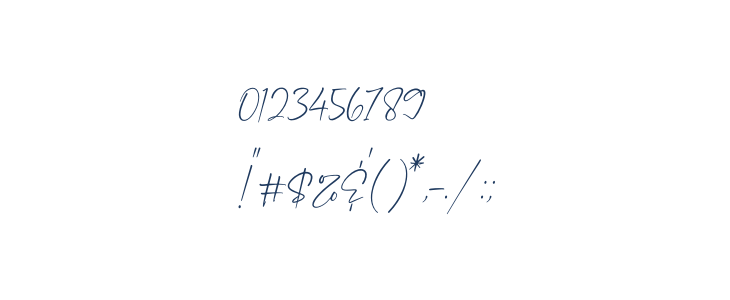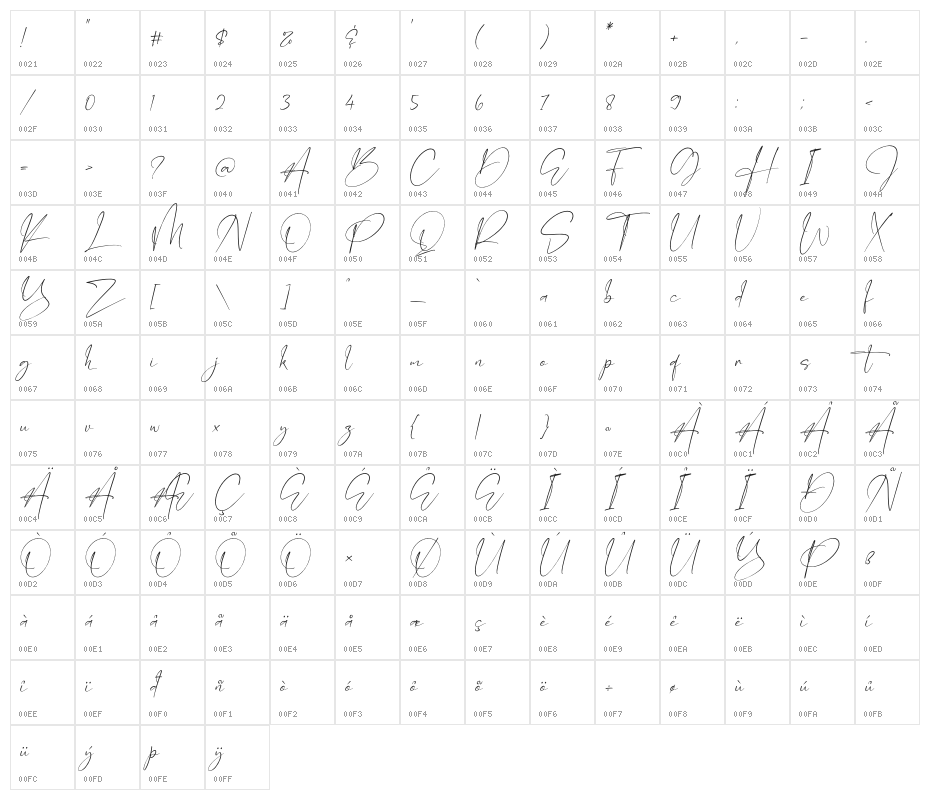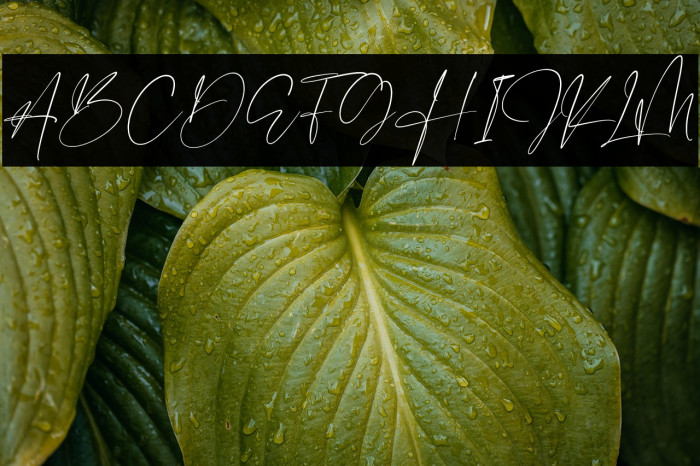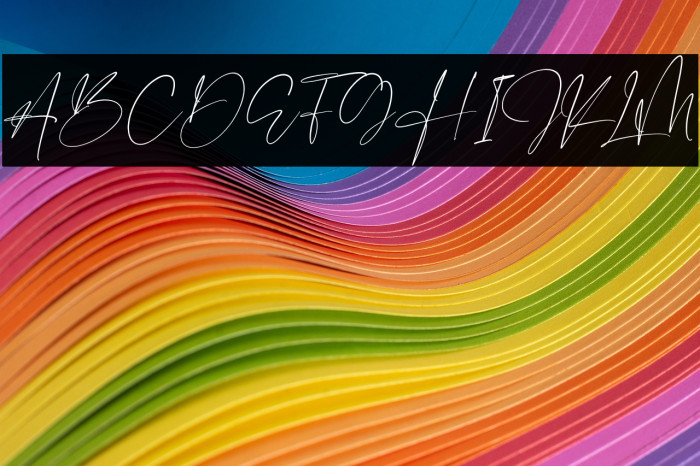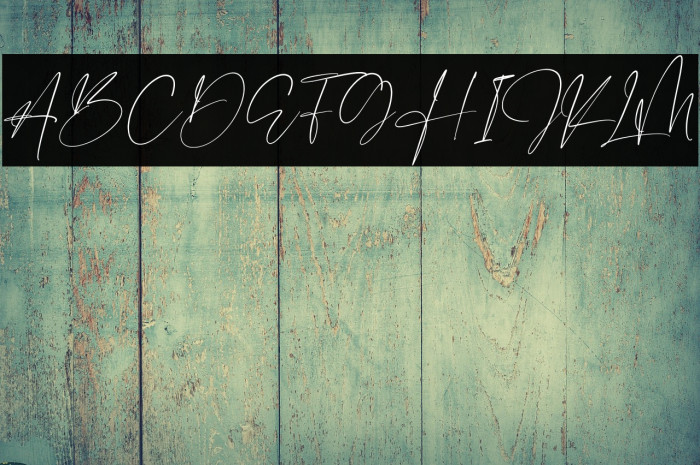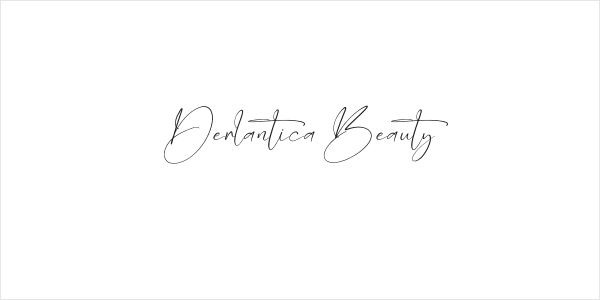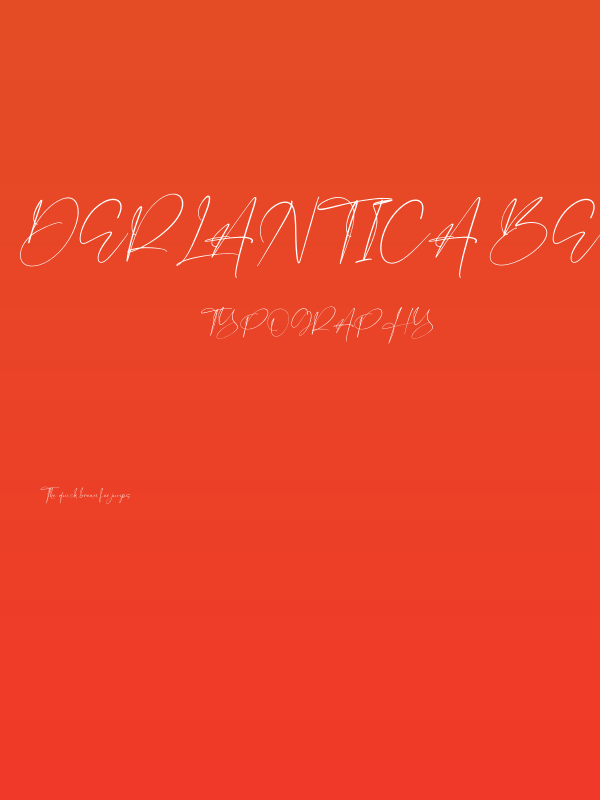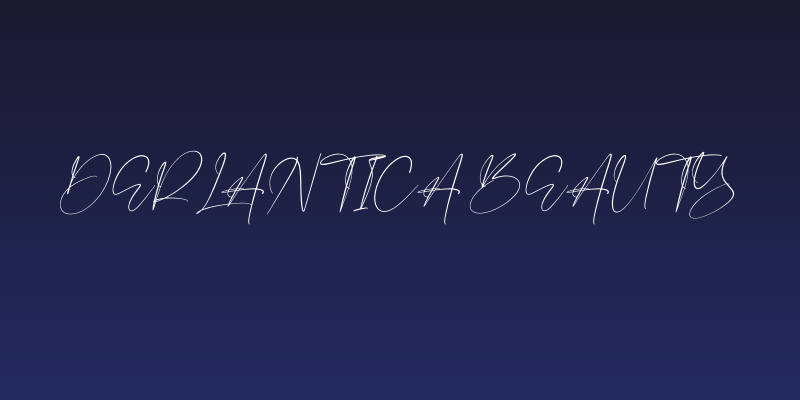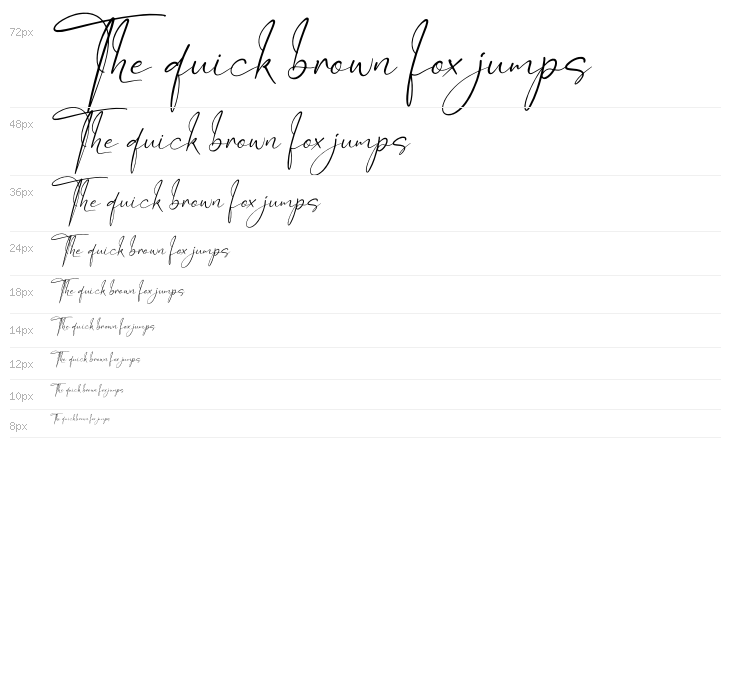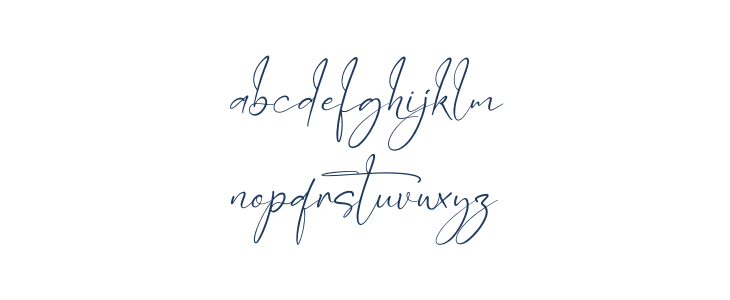
Derlantica Beauty Font
Derlantica Beauty Description
This elegant script font features a flowing, cursive style with delicate, thin strokes that give it a graceful and sophisticated appearance. The characters are interconnected, creating a seamless and fluid look that is both artistic and refined. The uppercase letters are tall and slightly exaggerated, while the lowercase letters maintain a consistent baseline, adding to the font's harmonious design. The numerals and special characters are crafted with the same attention to detail, ensuring a cohesive visual experience. This font is perfect for projects that require a touch of elegance and sophistication.